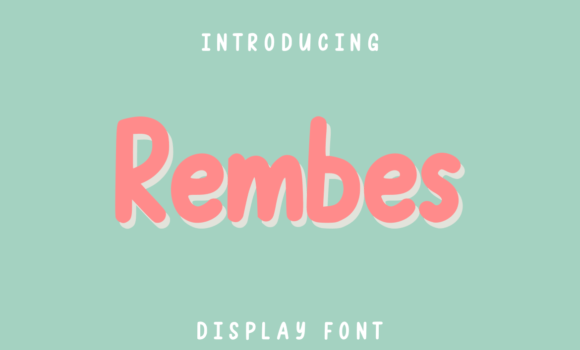
rembes
Rembes Font – Free Download Introduction to Rembes Font Rembes is a fun and friendly display font. 📸 Preview Gallery 6 images 📌 Product Name Rembes Font 👤 Author GFRcreative 📂 Category Explore ⬇️ Download Rembes Font FREE Free Download